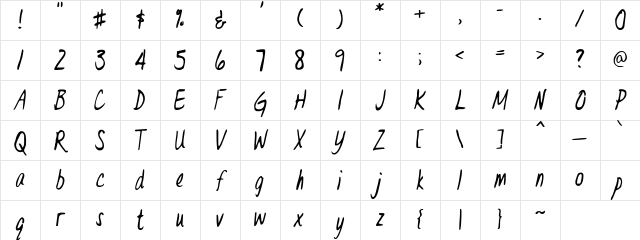
Dr. Eve L Regular Free Font
Dr. Eve L Regular
Dr. Eve L Family
Design Context for Dr. Eve L
Dr. Eve L is a composed and adaptable typeface that performs quietly and consistently across a wide range of design contexts.